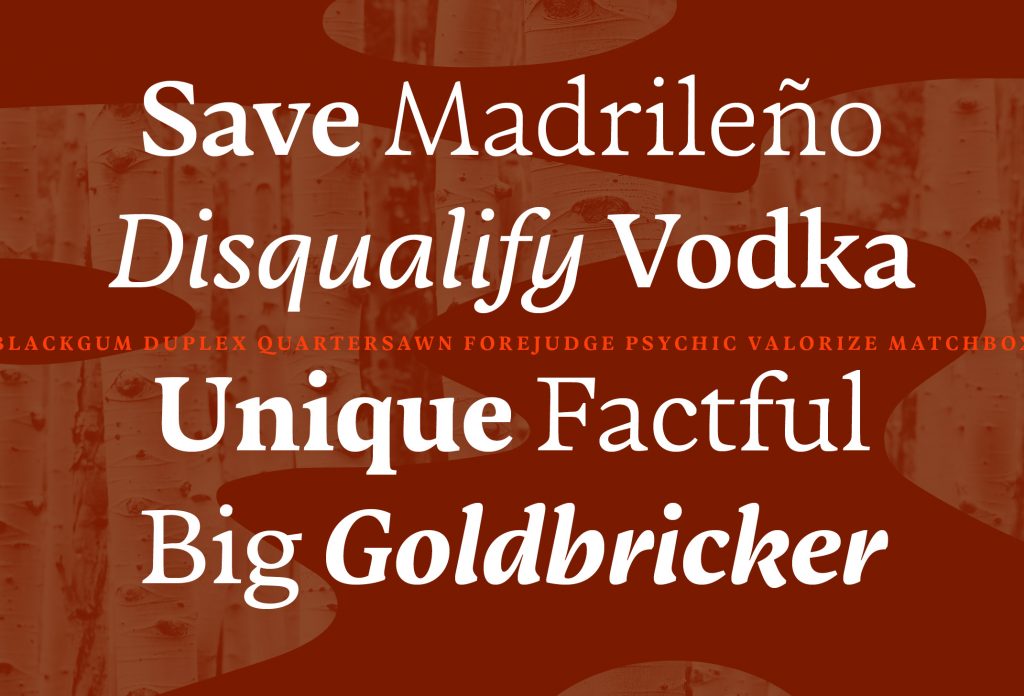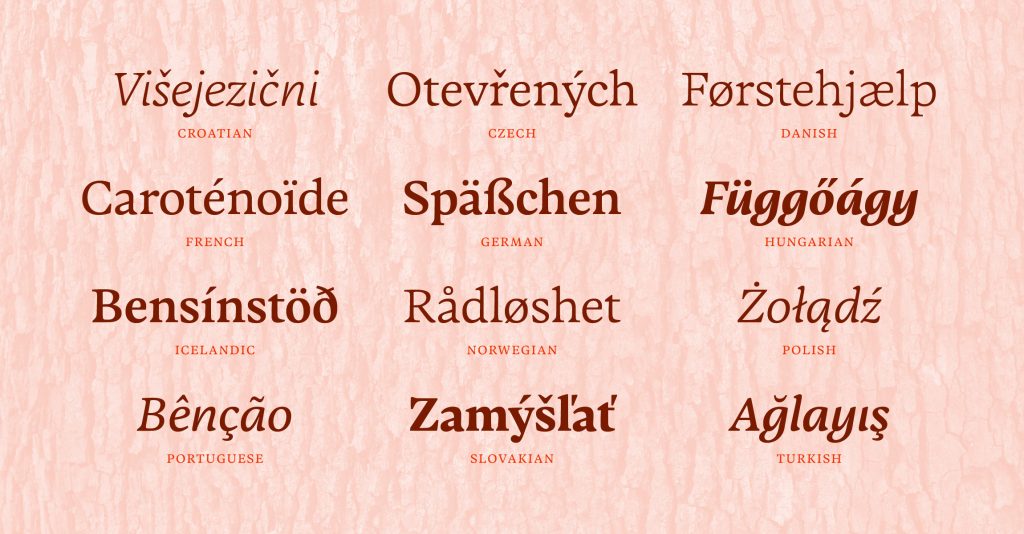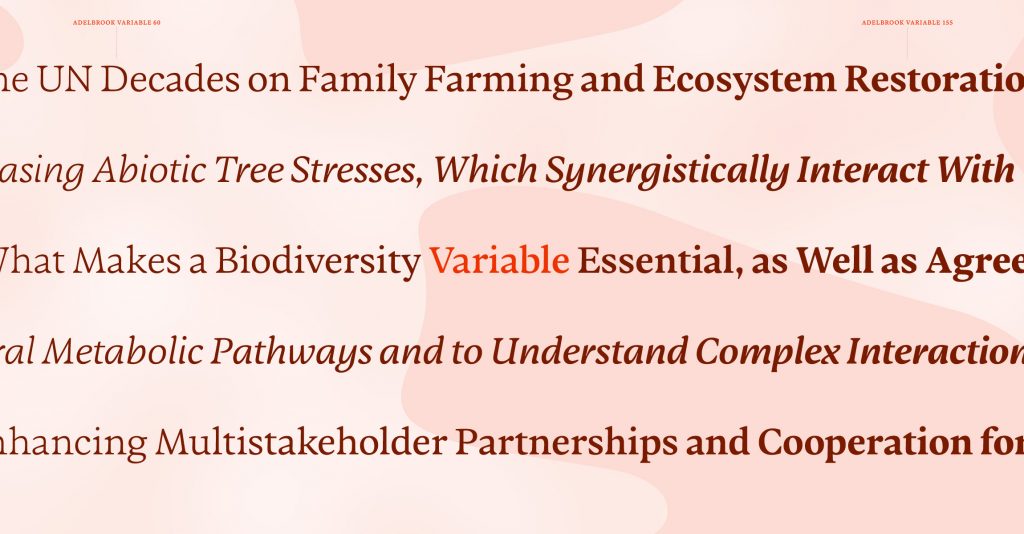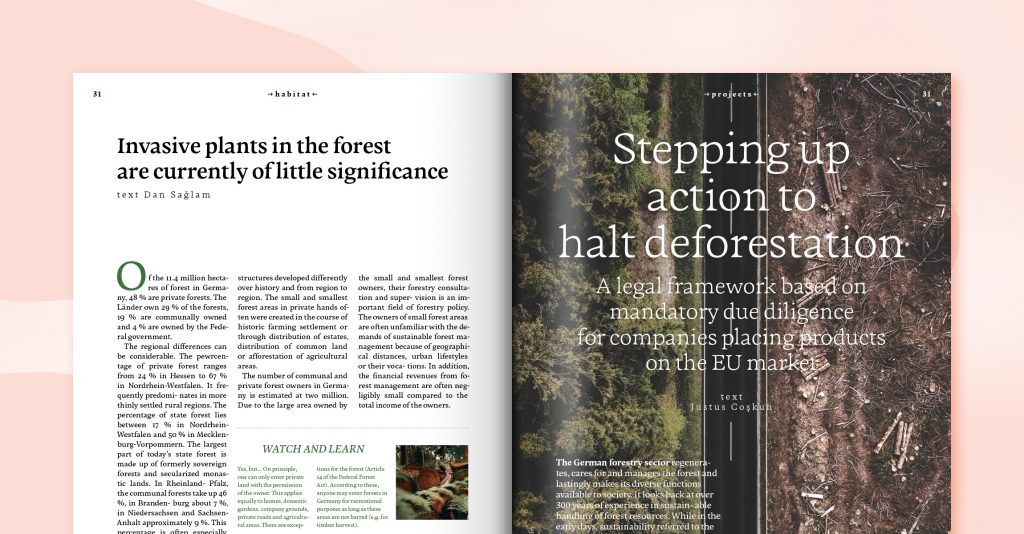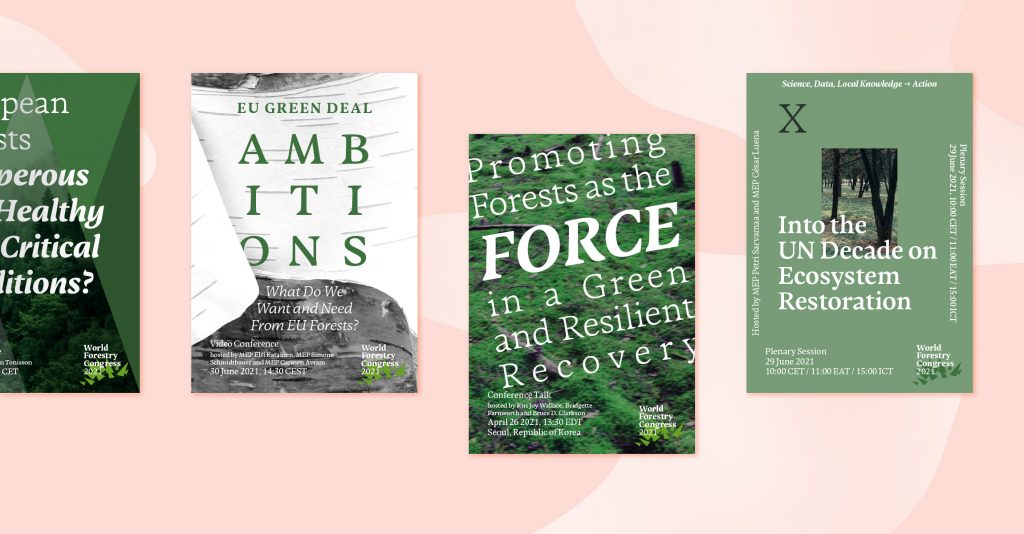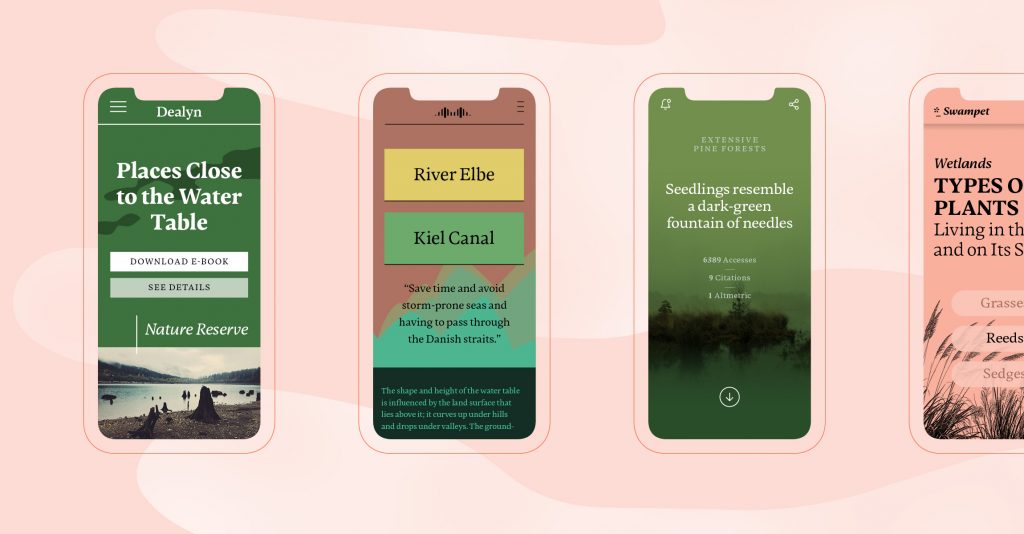
Name: Adelbrook
Designer: Philip Lammert
Foundry: Vibrant Types
Release Date: July 2021
Back Story: Hamburg-based type designer Philip Lammert finds contradictions a favorite source of inspiration, and set out to create a contemporary serif typeface with a debt to 15th-century Humanist styles that would not be a Humanist style in itself. To pull off this balancing act, Lammert endowed Adelbrook with straight vertical stems widening towards the baseline and ending in hefty asymmetrical foot serifs, then applied this principle of gravity (envision wet paint on a wall, dripping towards the bottom) proportionally to all elements, depending on character height. Humanist styles typically have a low x-height (Adelbrook’s is high); Humanist characters feature a low sloping bowl on the lower case a (Adelbrook shares this), distinctly slanted crossbars on lower case e’s, and o’s that lean towards the left; Adelbrook does not. The tension around these contradictions and similarities engaged the designer so thoroughly that Lammert completed the entire font family in just seven months.
Why’s it called Adelbrook? Feeling that his design called for an archaic, maybe even mystical name, Lammert started with the Edelwood trees seen in the 2014 Cartoon Network animated series “Over the Garden Wall.” Adelbrook’s stems and foot serifs reminiscent of tree trunks reinforce the association with a fairytale fen wood. Additionally, the German word adel means “nobility,” and brook in Northern Germany is a regional word for “marshland.” The combined term, “noble marshland,” has a peculiar charm suited to the organic natures of the characters.
What are its distinguishing characteristics? Adelbrook marches to a vigorous yet calm consistency. Its rhythm is that of a sophisticated alphabet with mechanical origins, rather than the more calligraphic underpinnings of a Humanist revival typeface. Adelbrook draws warmth from its baseline-emphasizing gravity, asymmetrical serifs, and idiosyncrasies in every character. The type family shows an evenness in its light or unapplied head serifs, clipped dots, teardrop terminals, tapered stems, a subtly grading vertical hairline variation, and hefty serifs around the lower parts.
What should I use it for? Adelbrook’s low stroke contrast and horizontal metrics don’t shy away from occupying space, making the typeface supremely legible in text sizes. Blogs, magazines and books are its home environment. Lammert says, “It looks good in the context of sustainable brands and eco-friendly corporate design…imagine it on organic food packaging! By the way, Adelbrook is a vegan typeface, as no animals were harmed during the design process.”
What other typefaces do you like to pair it with? Options, you’ve got options. If you want to play it safe, try a humanist sans, such as Libertad. If you’d like your layout to be more contrasty, use a geometric typeface with open counters such as Lelo. Finally, for a traditional look and feel, combine Adelbrook with Halyard, a font occupying the middle ground between a handcrafted neo-grotesque and a condensed early grotesque.